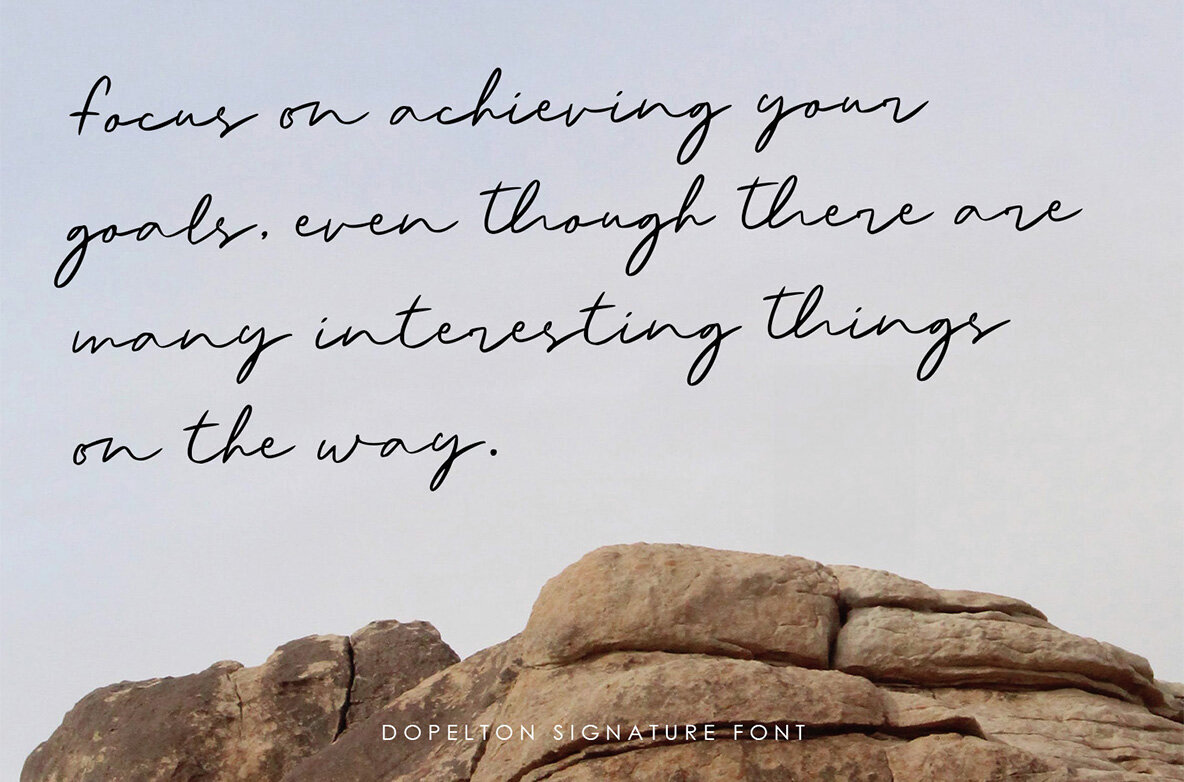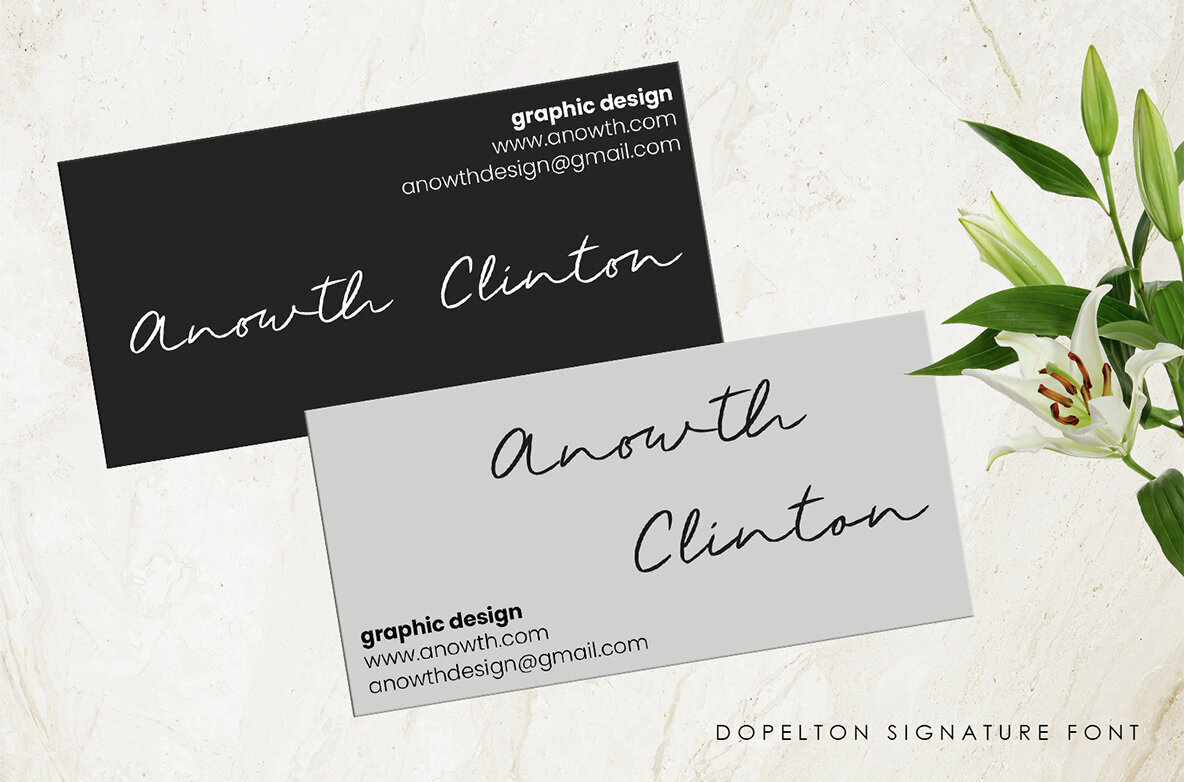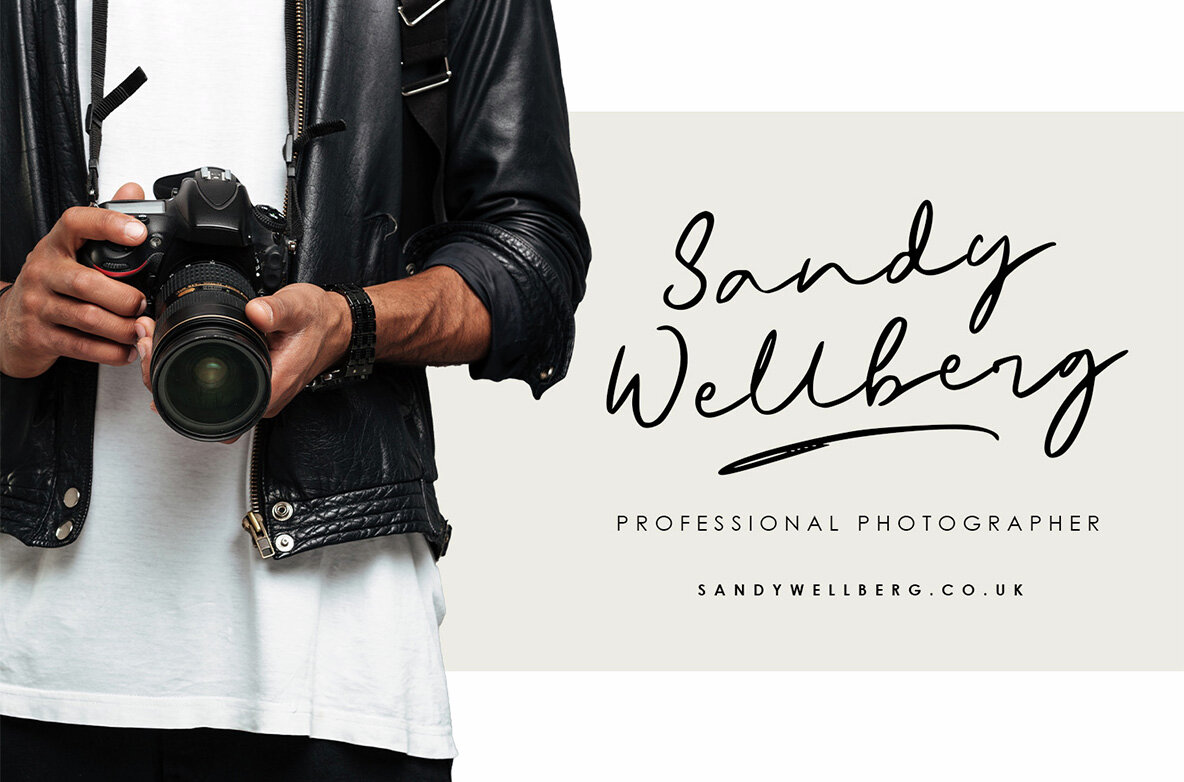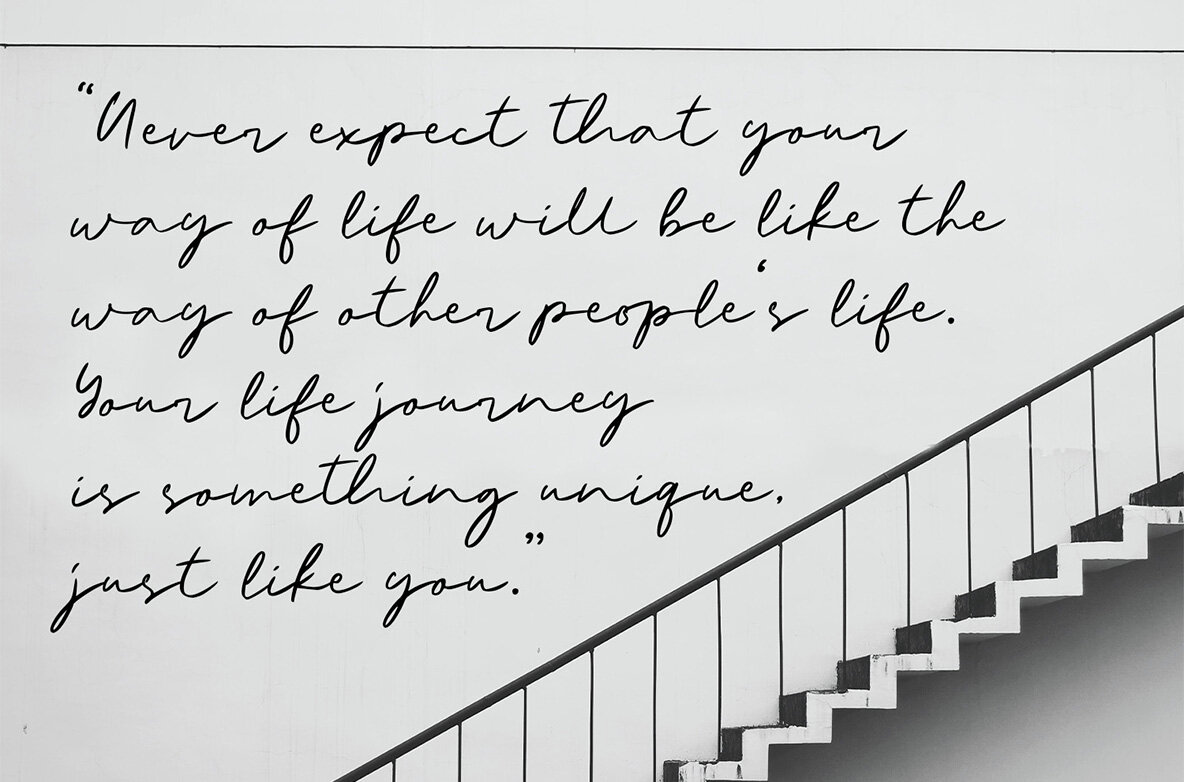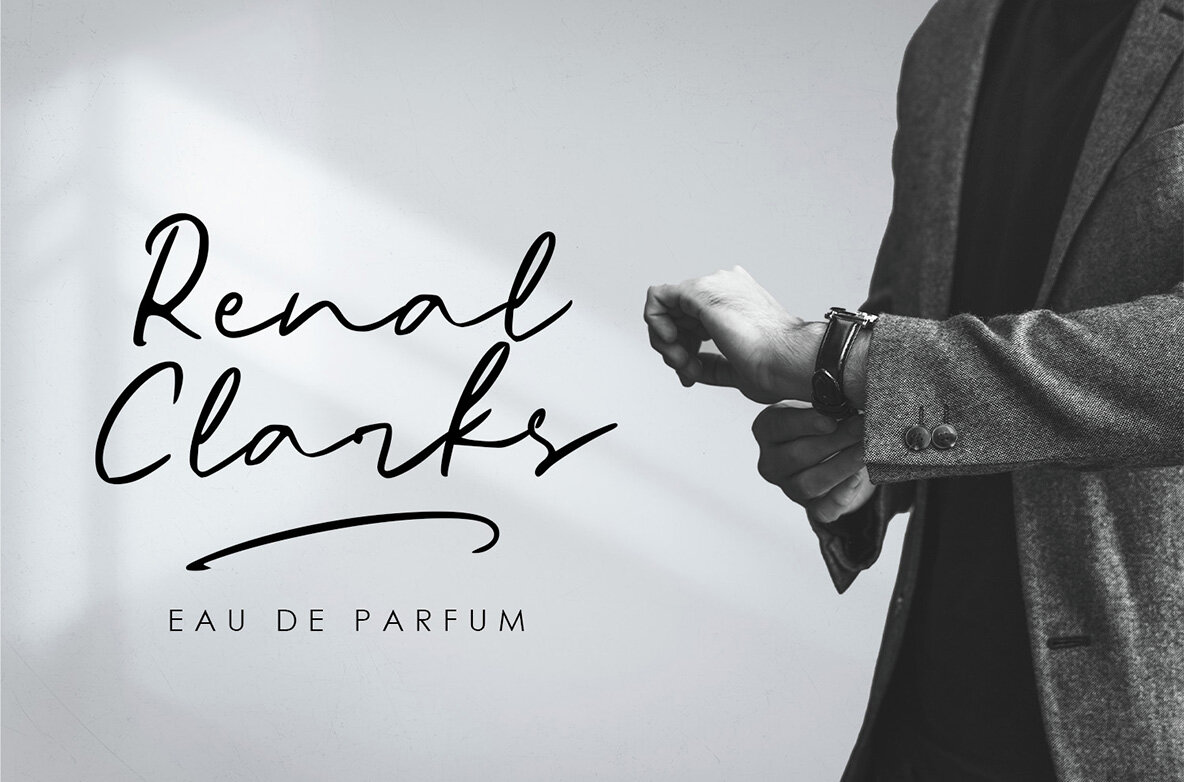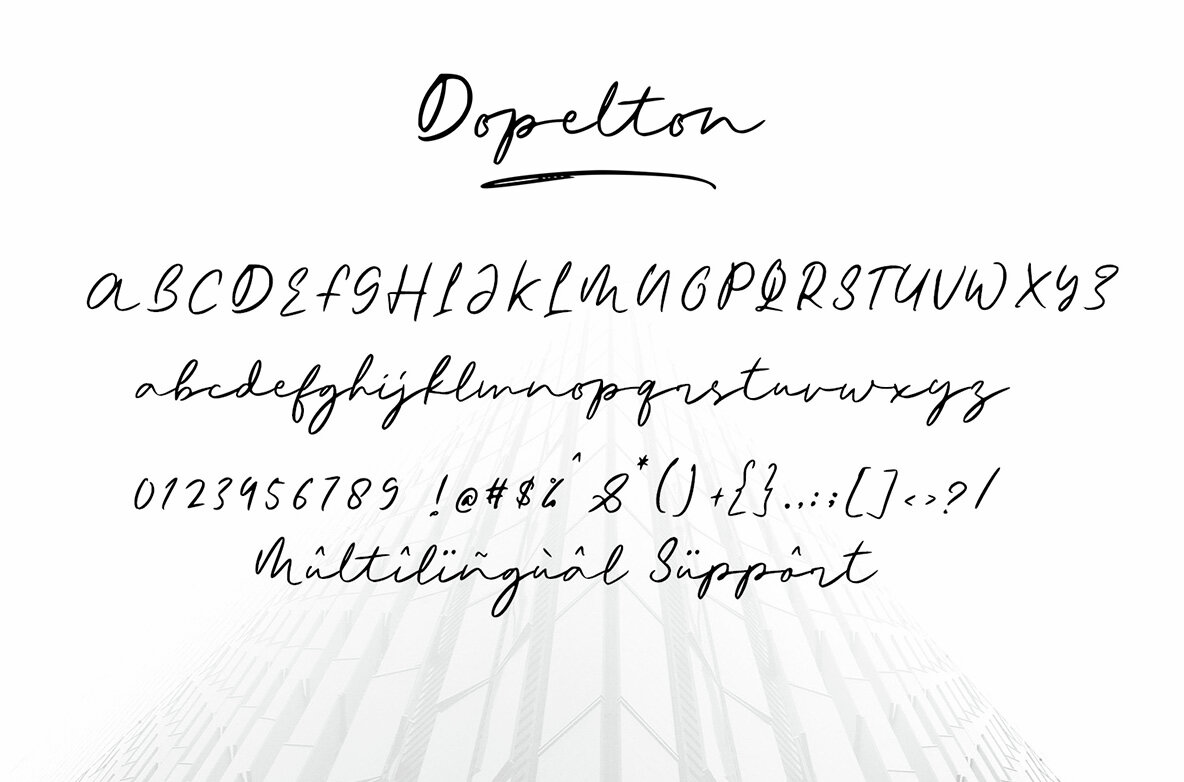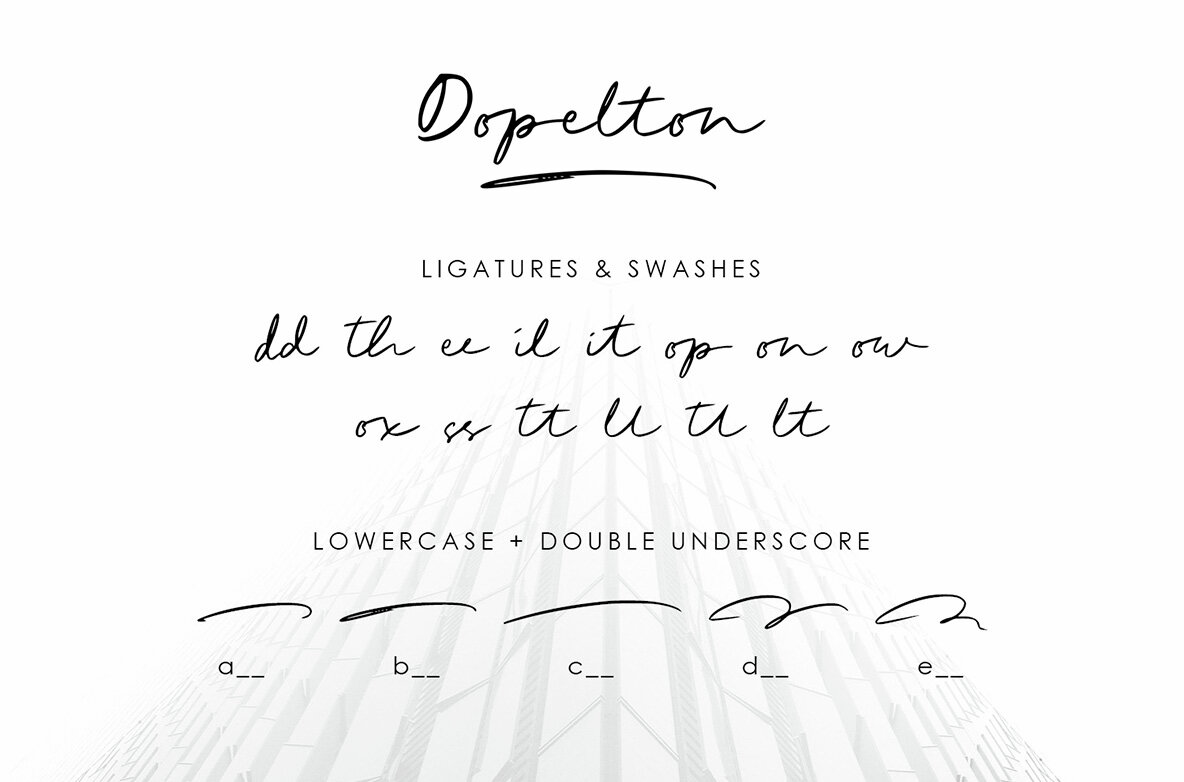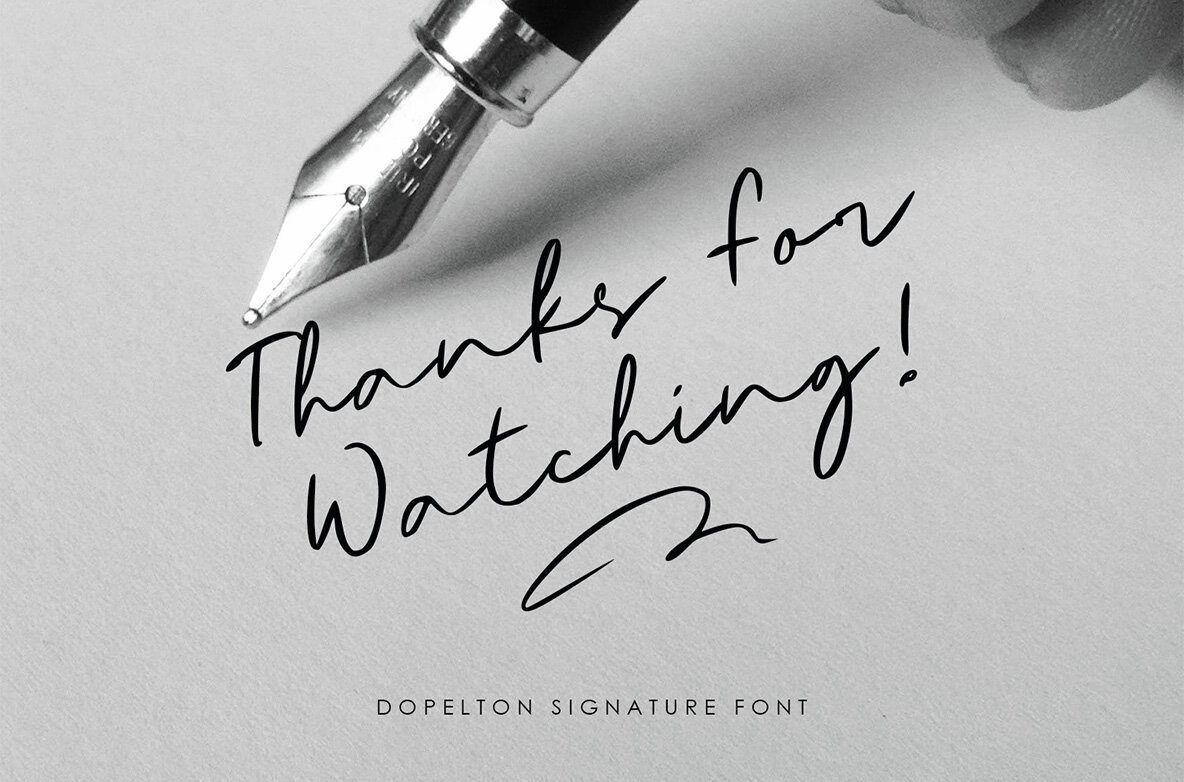
Dopelton Font
Dopelton Regular
Introducing Dopelton, a signature font that transcends the ordinary, embodying the essence of personal style and sophistication. Crafted with meticulous attention to detail, Dopelton is more than a font; it’s a stroke of individuality, a visual symphony that transforms signatures into works of art. Each letter in Dopelton carries a distinctive flair, reminiscent of a signature penned by a hand writer. The fluid strokes seamlessly merge, creating a harmonious rhythm that captures the art of the handwritten with a contemporary twist. The balance between elegance and readability is finely tuned, making Dopelton versatile for various design purposes. Dopelton is not confined to the limits of static characters; it adapts to the natural flow of the hand, ensuring a unique signature experience every time. The font’s dynamic nature brings authenticity to digital signatures, providing a touch of human warmth in the digital realm. The details of Dopelton are a testament to its craftsmanship. Subtle curves, refined loops, and a tasteful interplay of thick and thin lines give each letter a signature-worthy personality. Whether used for branding, invitations, or personalized stationery, Dopelton adds a touch of refined charm to any project. This signature font is designed to make a statement—bold yet graceful, modern yet timeless. Dopelton is more than a font; it’s an extension of your identity, a signature that leaves a lasting impression. Elevate your designs with Dopelton and let your words carry the unmistakable touch of personalized elegance.